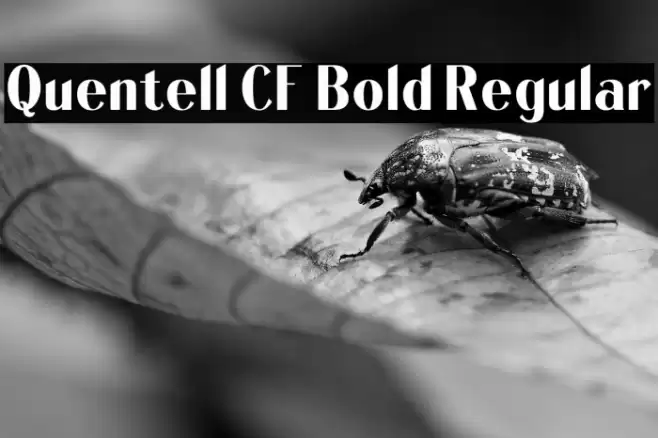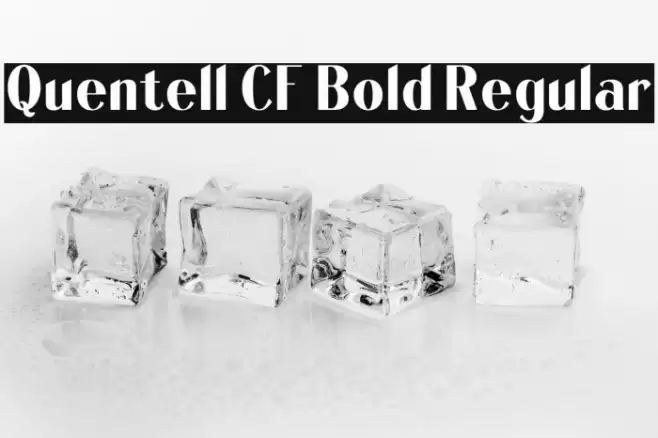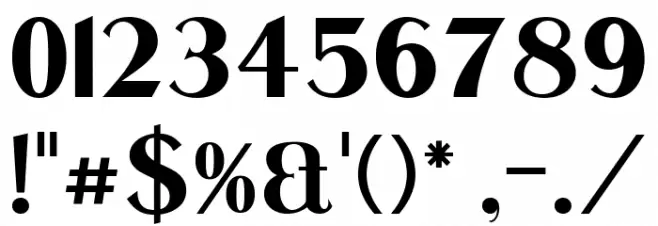
Quentell CF Bold Regular Font
Quentell CF Bold Regular Description
This font exhibits a bold and striking presence, characterized by its thick strokes and high contrast between thick and thin lines. The uppercase letters are tall and commanding, while the lowercase letters maintain a consistent weight, offering a harmonious balance. The numerals are robust and easily legible, complementing the overall bold aesthetic. Special characters are designed with flair, adding a touch of elegance to the font's strong appearance. The font's style is both modern and classic, making it versatile for various design needs.
A bold, high-contrast font with a modern yet classic style from Uncategorized fonts.
- Proposed Projects: Ideal for headlines, branding, posters, and any design requiring a strong visual impact.
- Overall Style: Modern, Classic